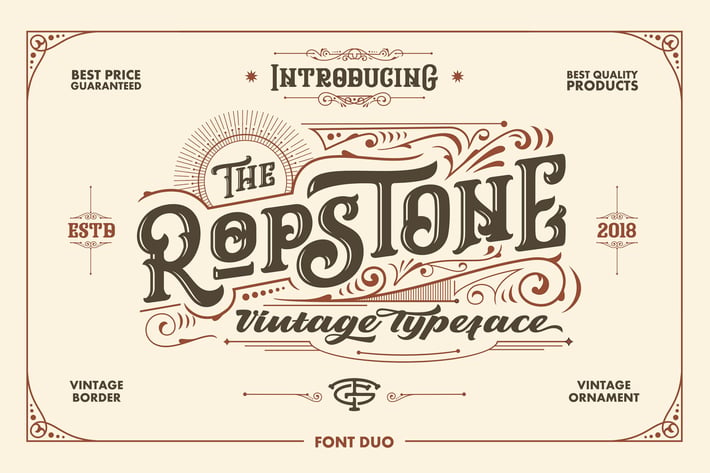
Ropstone Typeface
Ropstone is a font display is made by hand, inspired by classic posters. Bring up your vintage passion with this font, so much inspiration as you access it. All benefits you will feel when you start to create works with Robstone fonts. What are you waiting for, the best price and best quality we give you with pride.